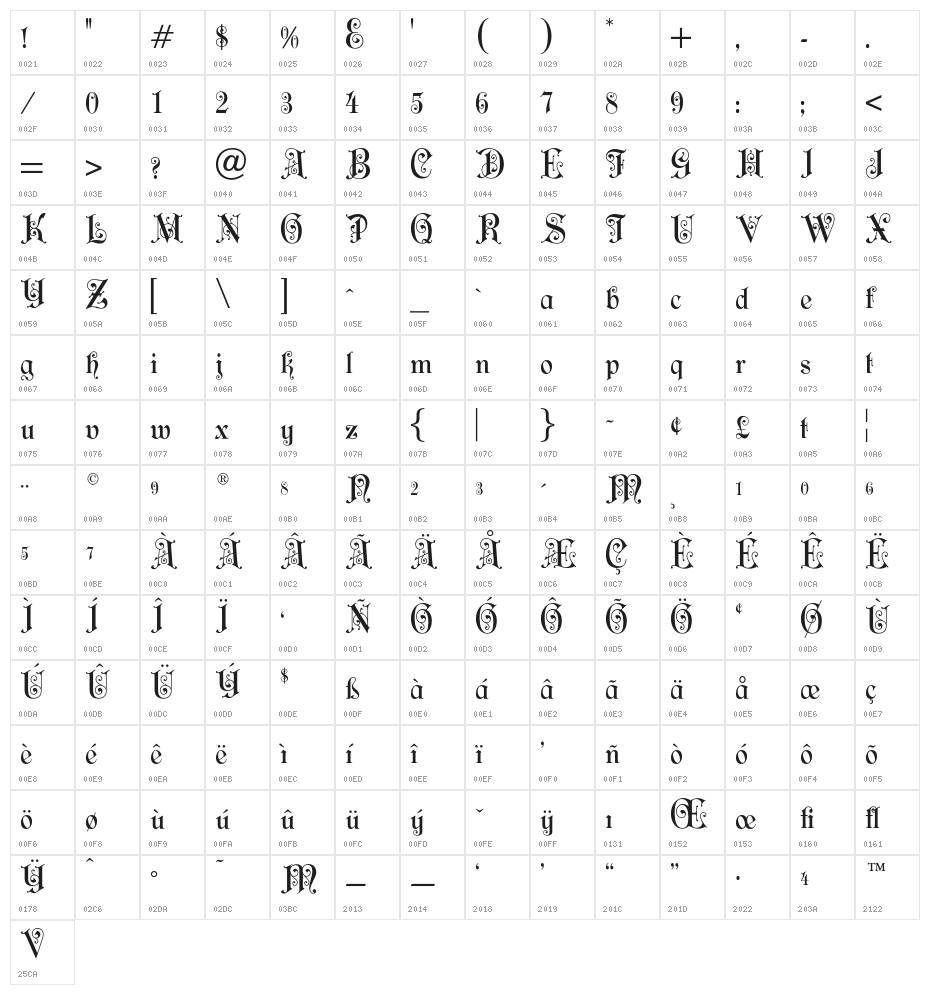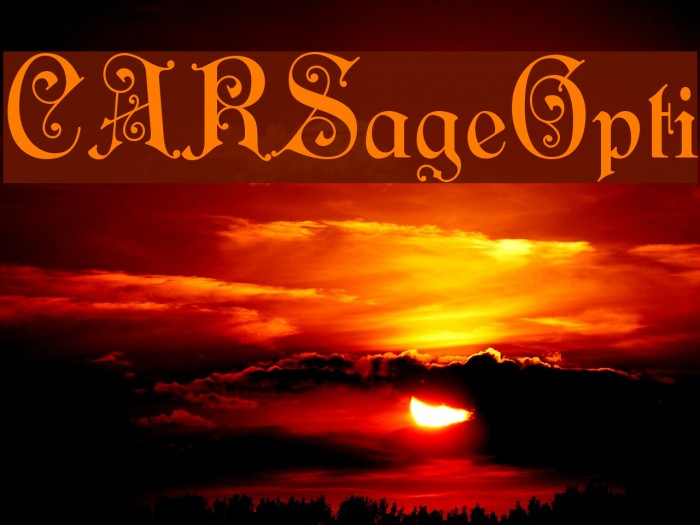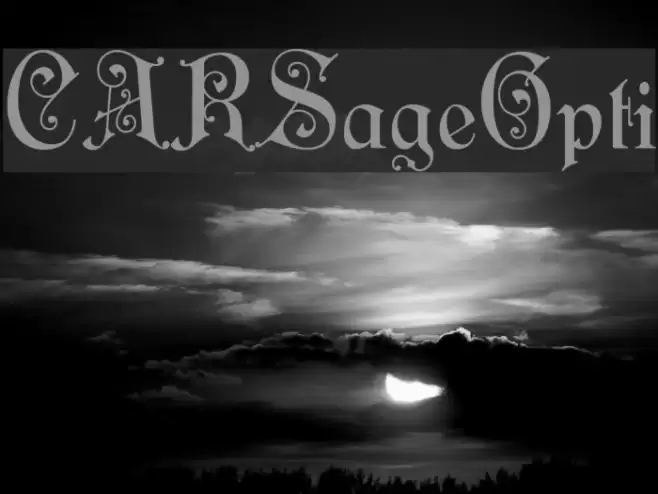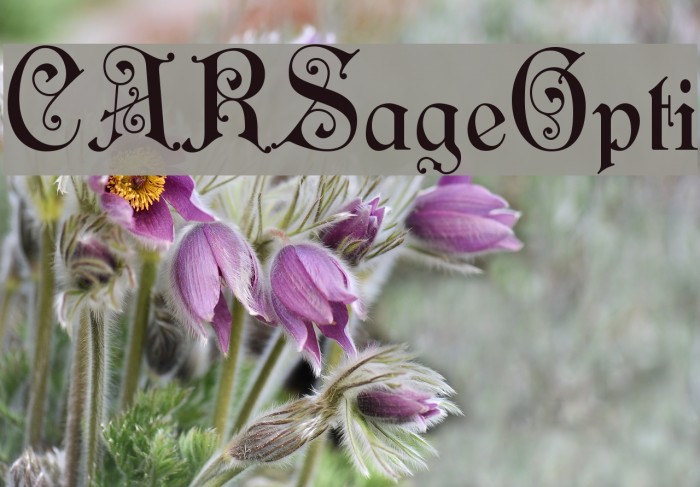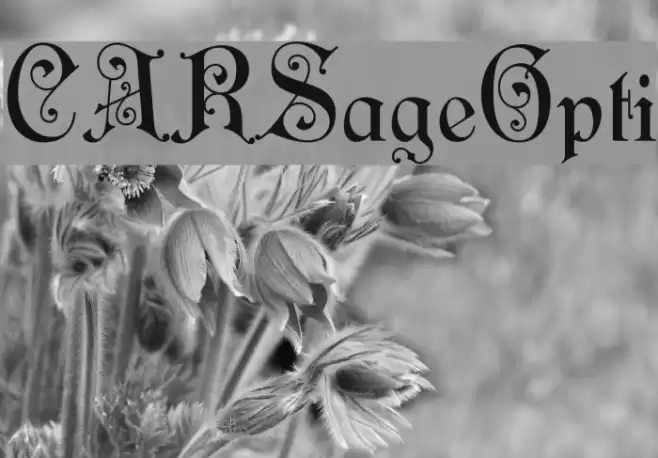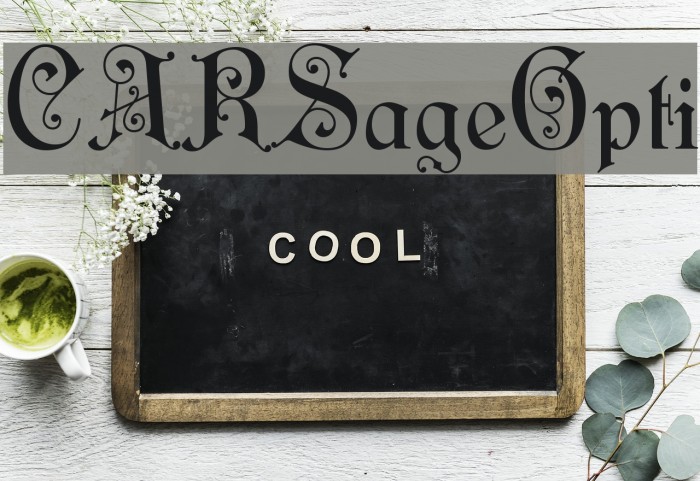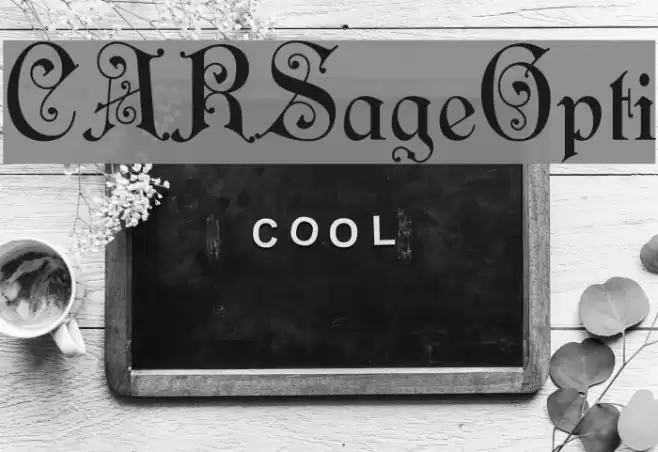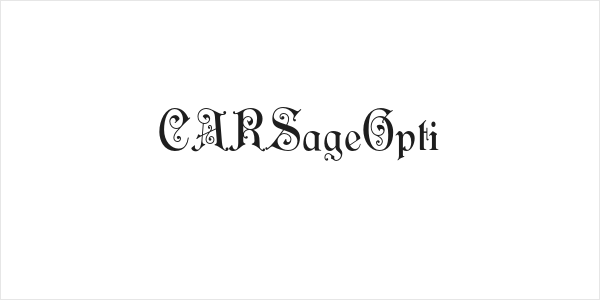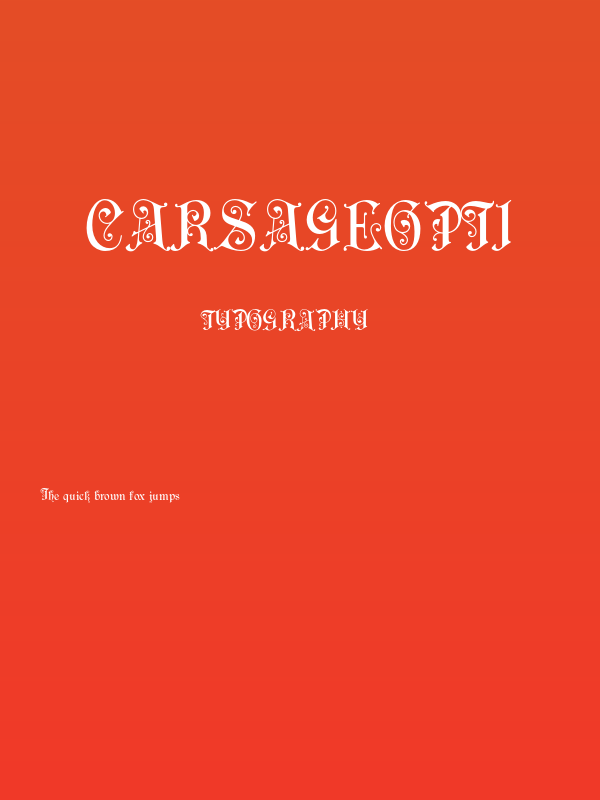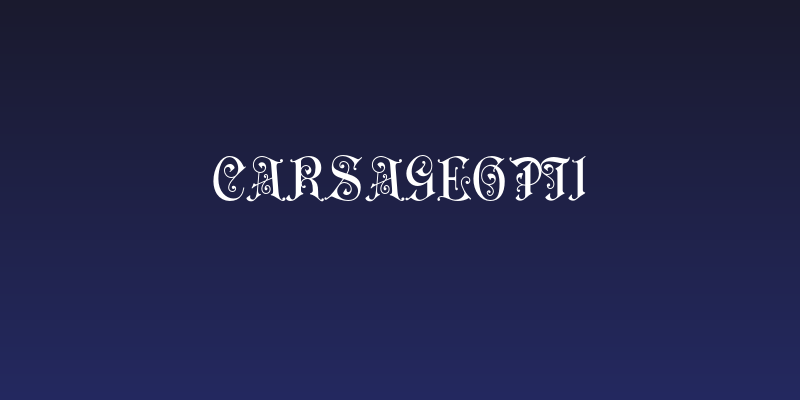
CARSageOpti Font
CARSageOpti Description
This font features an ornate and decorative style, characterized by intricate swirls and embellishments on each letter. The uppercase letters are particularly elaborate, with flourishes that extend beyond the basic letterforms, giving them a regal and sophisticated appearance. The lowercase letters maintain a similar decorative quality, though slightly more subdued, ensuring readability while retaining the font's unique charm. The numerals and special characters are equally adorned, making the font suitable for projects that require a touch of elegance and historical flair. The overall design suggests a blend of vintage and classic styles, reminiscent of old-world craftsmanship.
| Overall Style | Vintage, Classic |
| Proposed Projects | Ideal for wedding invitations, luxury branding, historical themed projects, and decorative headlines. |